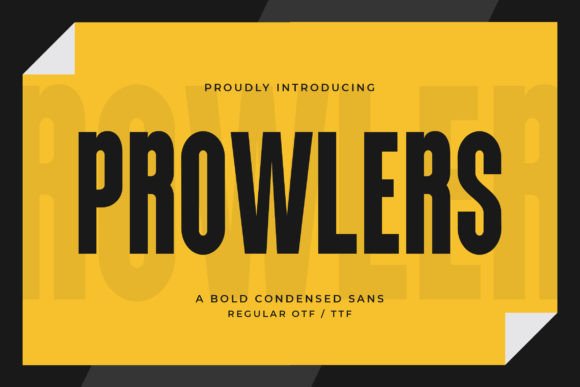
Behold, the mighty "Prowlers" font, a sans serif masterpiece that reigns supreme in the realm of impactful typography. This condensed font family, crafted by the talented TypeFactory, is not just a collection of letters, but a visual symphony that commands attention and leaves an indelible mark on your designs.
"Prowlers" is a font that speaks volumes, even in its silence. Its bold letterforms, meticulously designed with both strength and versatility, convey a sense of power and elegance that is hard to ignore. Unleash the prowling spirit within your designs and watch as your words leap off the page or screen, demanding attention and leaving a lasting impression.
With "Prowlers" at your disposal, you'll find yourself effortlessly creating attention-grabbing headlines, logos that pack a punch, modern posters that captivate, and a myriad of other projects that demand impact. Its commanding presence will elevate your designs to new heights, leaving your audience spellbound and yearning for more.
So, why settle for ordinary fonts when you can unleash the untamed power of "Prowlers"? Embrace the boldness, revel in the versatility, and let your creativity run wild. "Prowlers" is more than just a font; it's a game-changer, a design force to be reckoned with.
Elevate your designs to the next level. Make a statement. Prowl your way to success. "Prowlers" awaits your command.